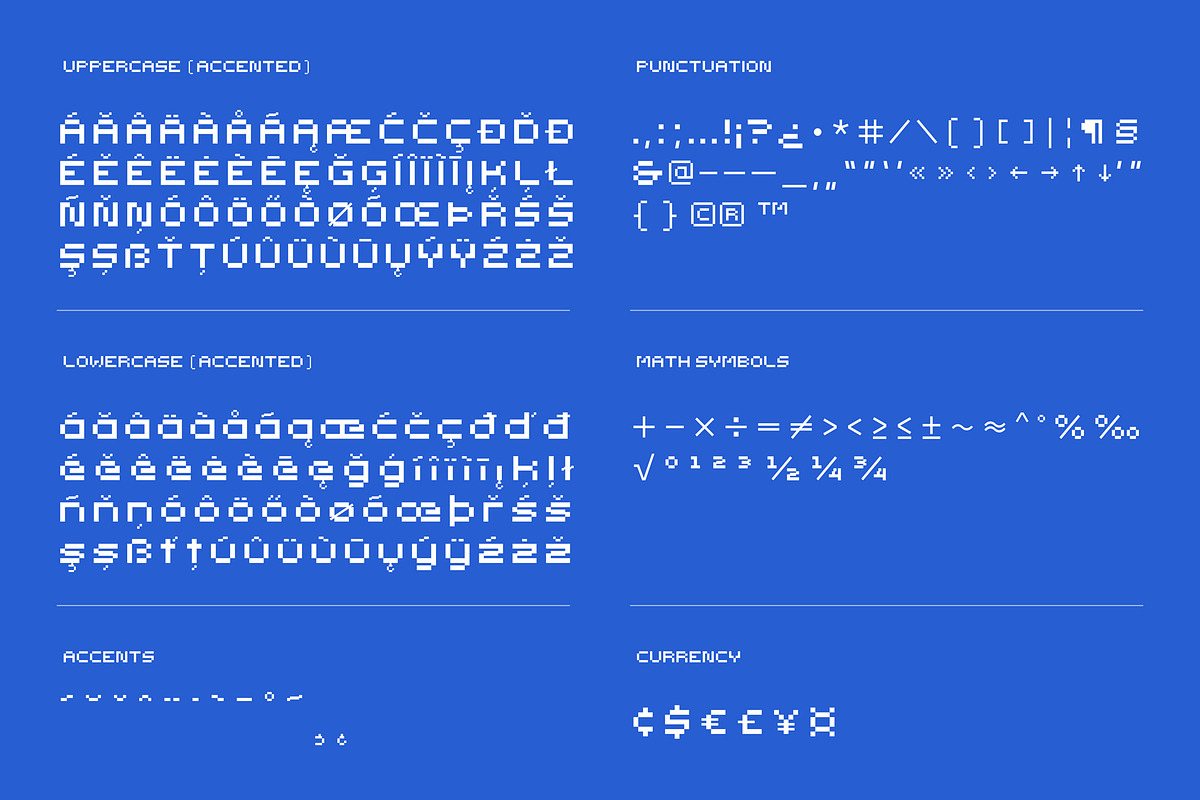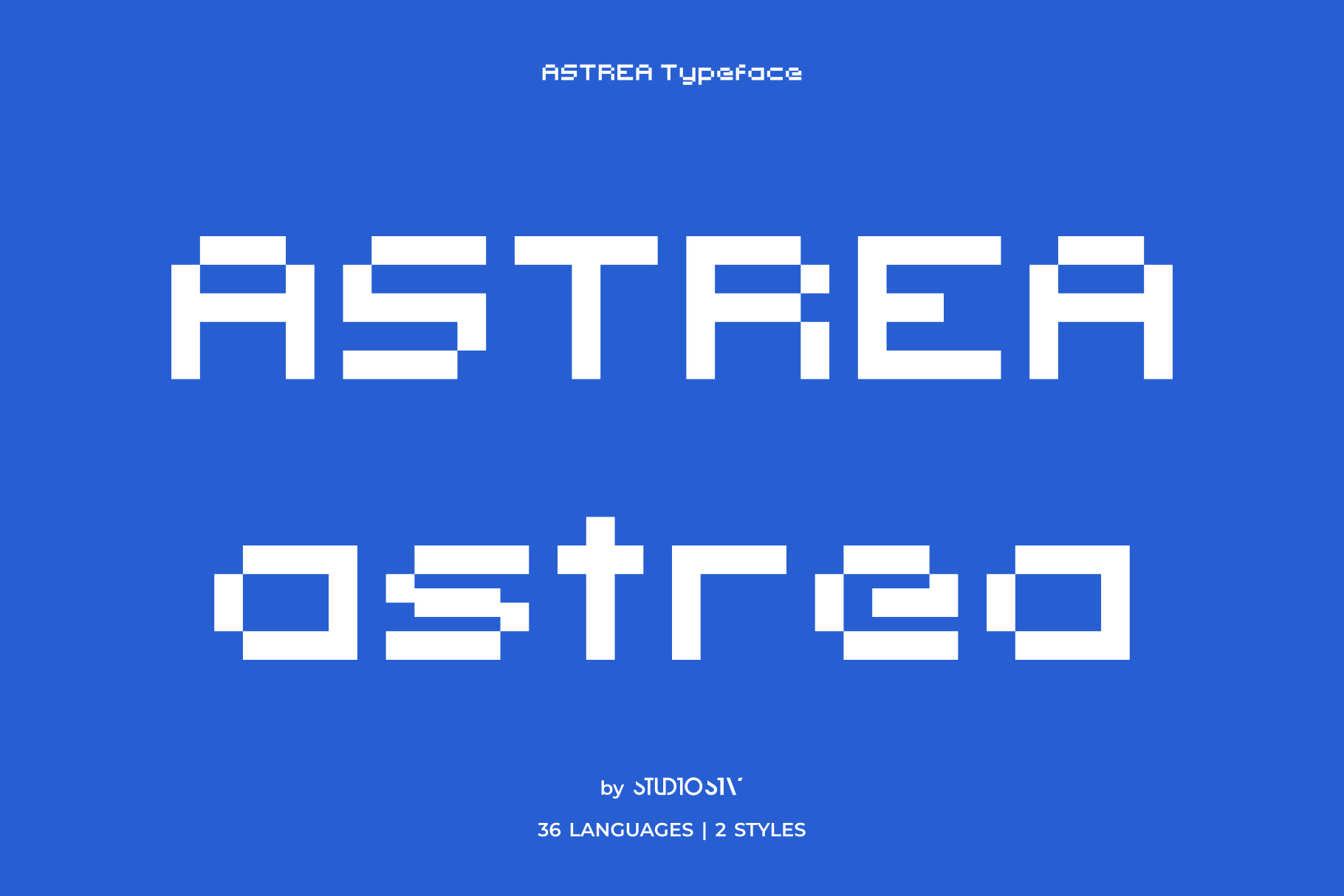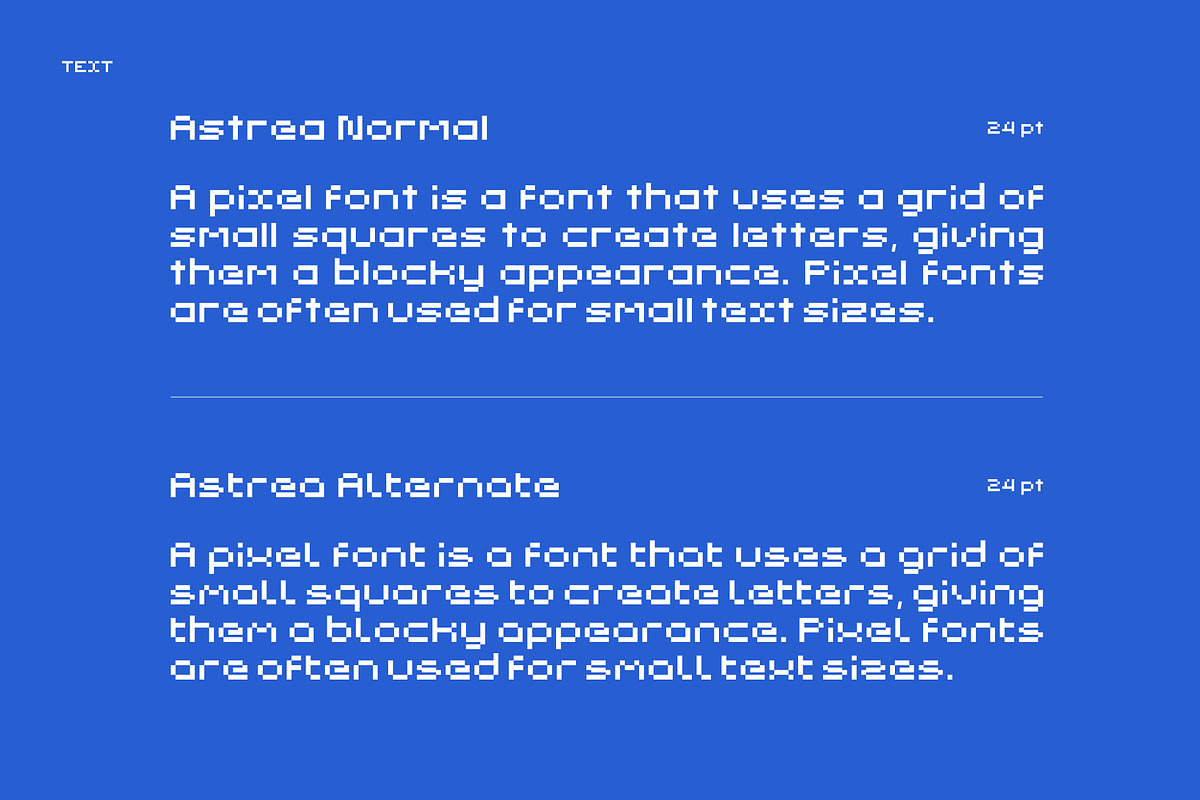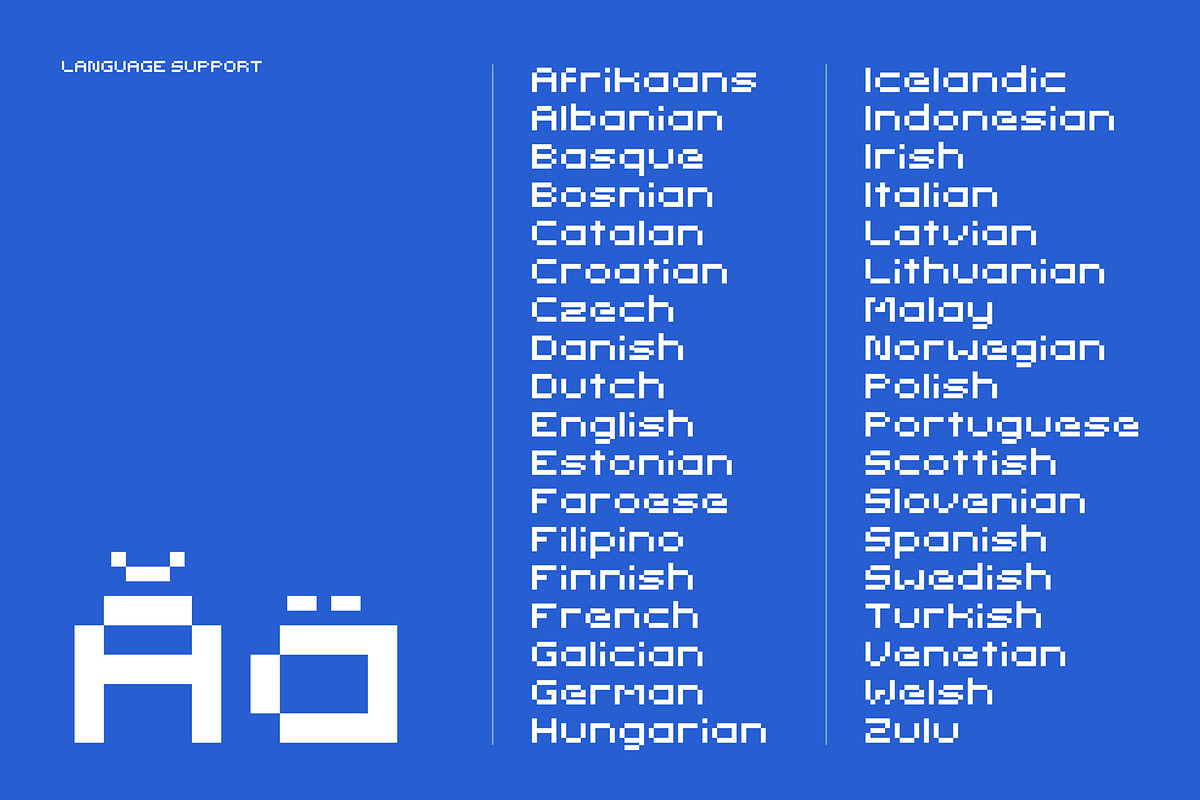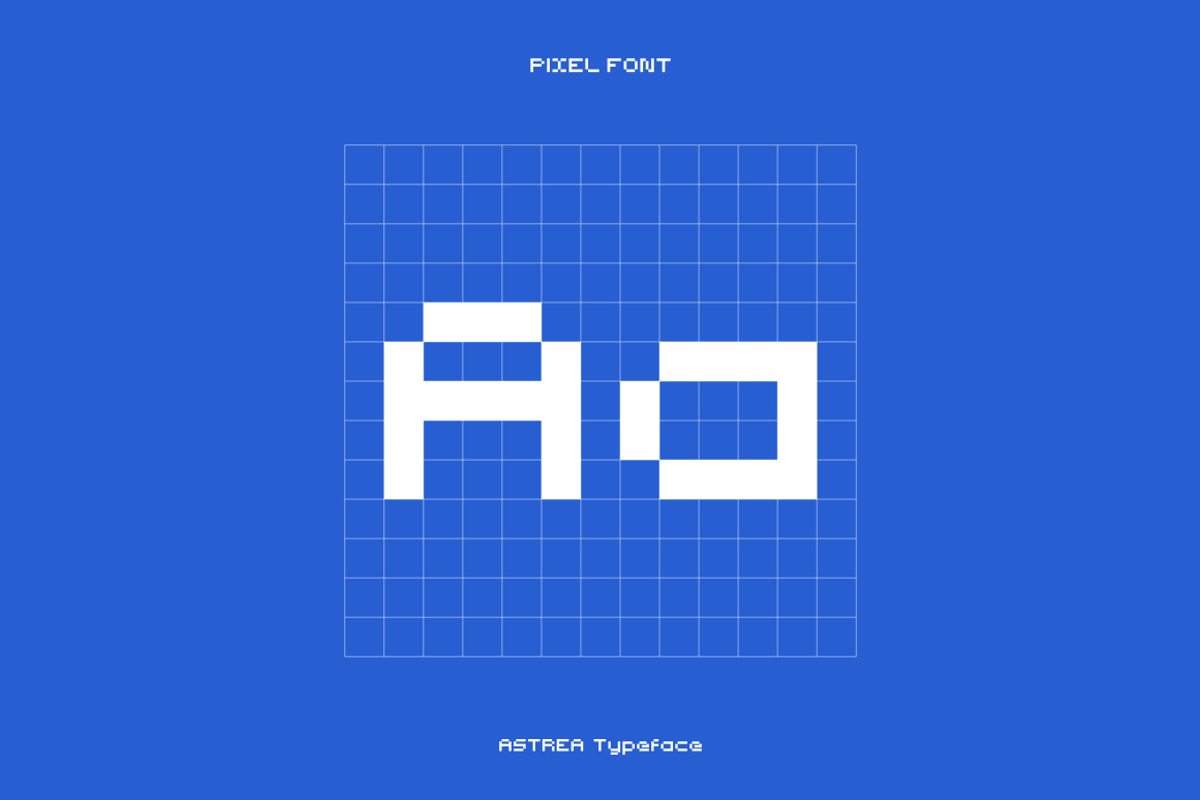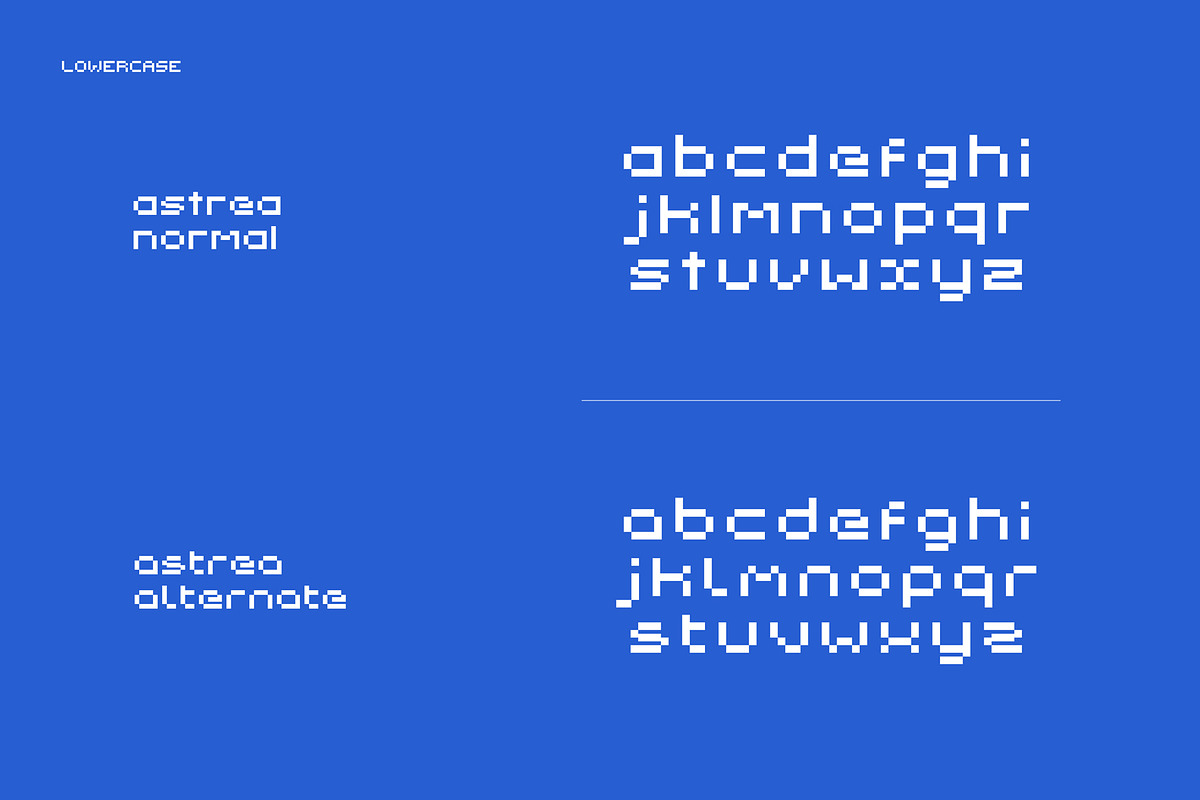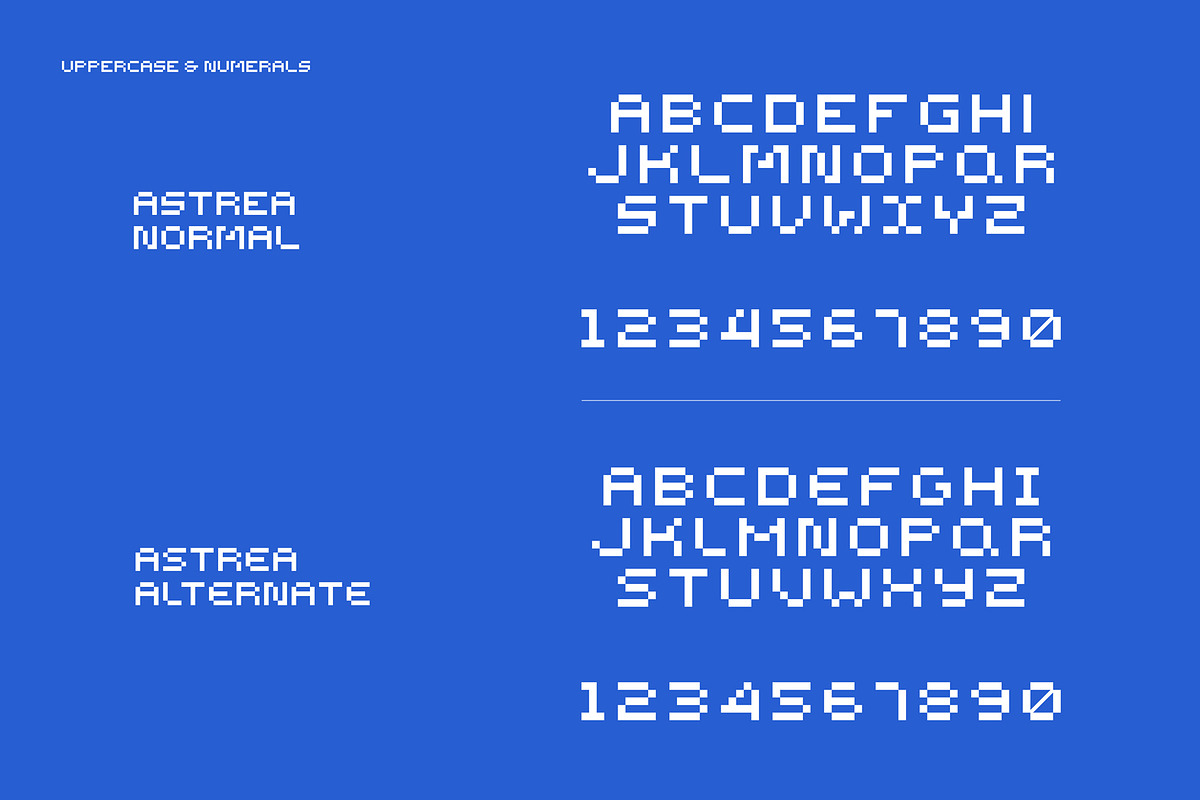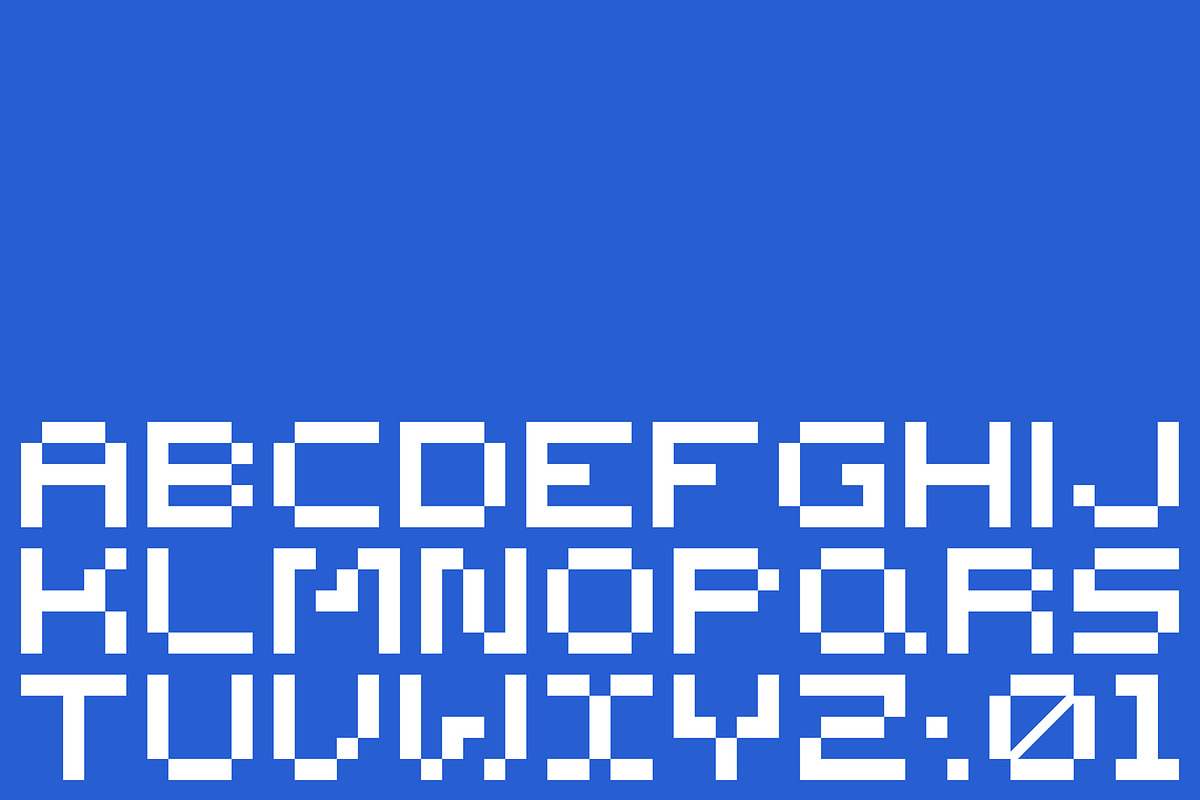
Astrea - Pixel Font | Display & Text
Astrea is a carefully crafted pixel font inspired by 8-bit retro games. It combines pixel precision with modern readability and design, making it ideal for games, graphic design, creating vibrant and eye-catching visuals, and more.
- 2 Styles (Normal & Alternate)
- Display & Text Font
- Supports over 36 Languages